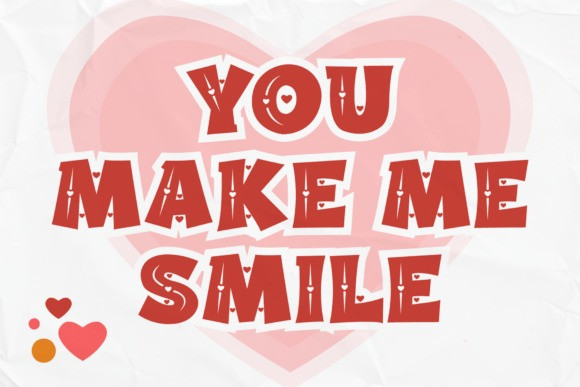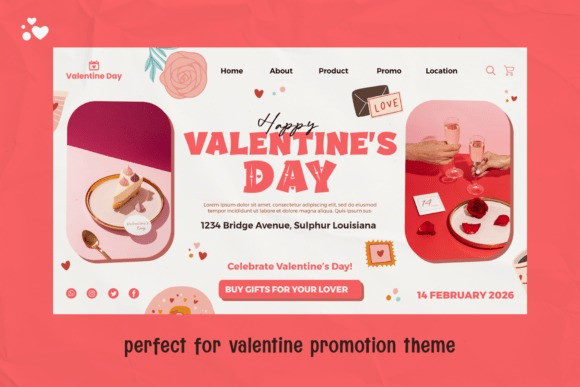
Zippy Love Font
Zippy Love Font – a Valentine-themed typeface that rings with pure joy, love, and cheerful sentiment.It’s a creation that encircles delightful readability with a distinctive artistic signature. Possessing a dual-style framework, Zippy Love in Regular and Decorative styles gifts designers with the latitude to oscillate between unpretentious bold lettering and decorative characters filled with love.
Immerse in the Regular style where friendly, clean, and rounded letters emanate warmth or explore the Decorative style with its heart-accentuated details that infuse an emotional appeal into every word. With its origins rooted in Valentine’s Day aesthetics, retro greeting cards, and romantic packaging, Zippy Love has its eyes firmly fixed on compelling visual storytelling. Despite its strong aesthetic impact, it remarkably steers towards versatility, catering to an array of creative applications.
Zippy Love effortlessly scales large sizes with a striking readability, making it a fitting choice for digital designs, signage, or posters. It shines in various arenas – from Valentine’s cards, wedding invites, Instagram quotes, to children’s merchandise, seasonal promotions, or playful branding. The choice of the Decorative style offers a spark for romantic headlines, while the Regular style resonates beautifully with comprehensive text compositions.
An invaluable tool for creators aiming for warmth, cuteness, and emotional depth, Zippy Love tailors designs that are unique, personal, romantic, and filled with a joyful spirit.
Whether in print or pixel, Zippy Love’s decorative allure and commanding presence always shine through. If your design needs a buoyant undercurrent of playful energy tethered to professional versatility, Zippy Love bedecks your creation with abundant character.